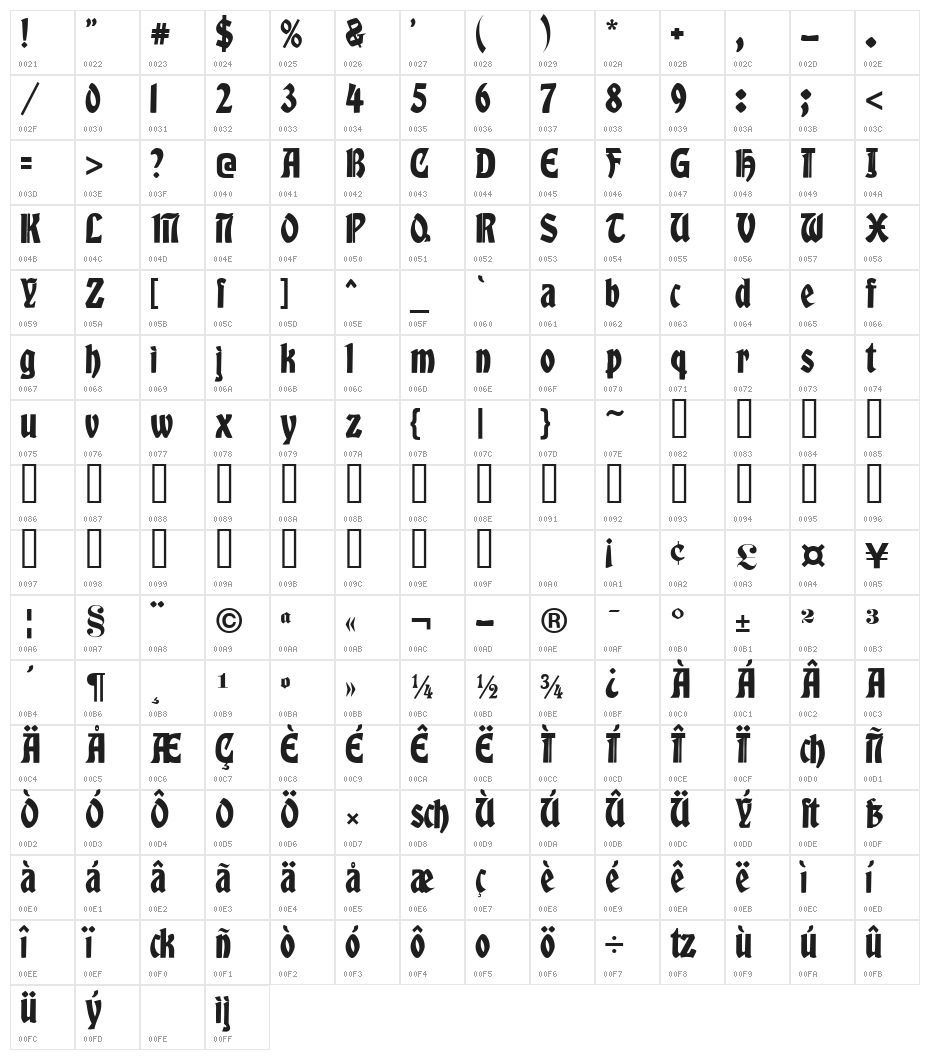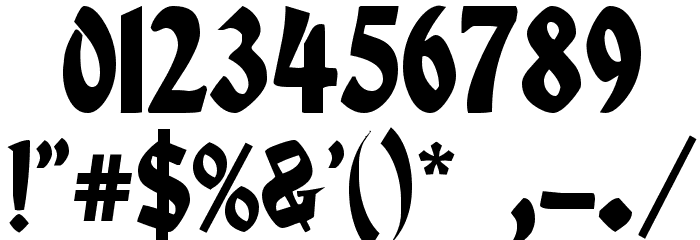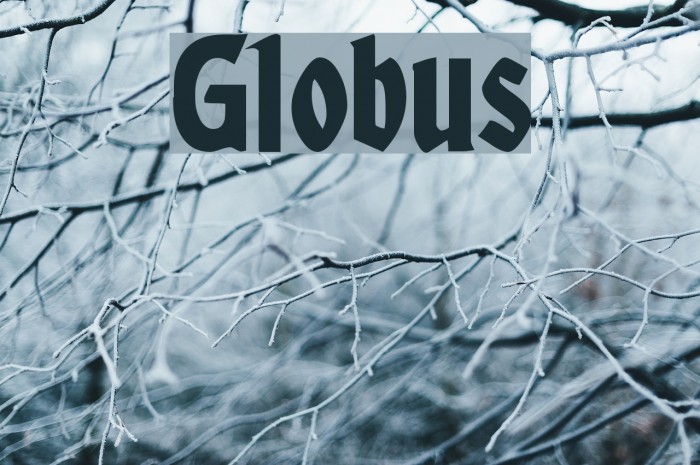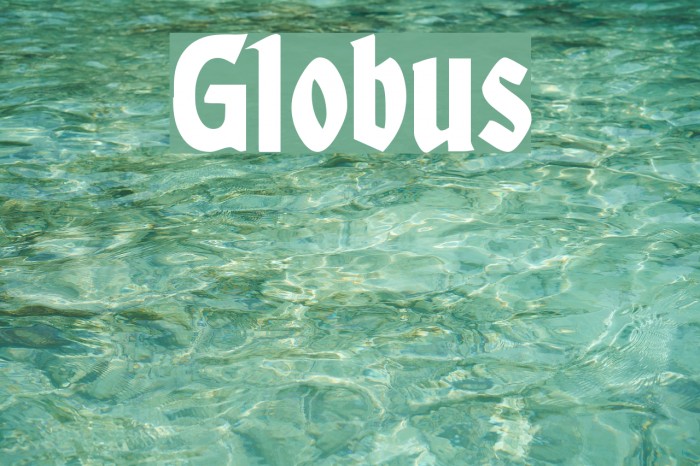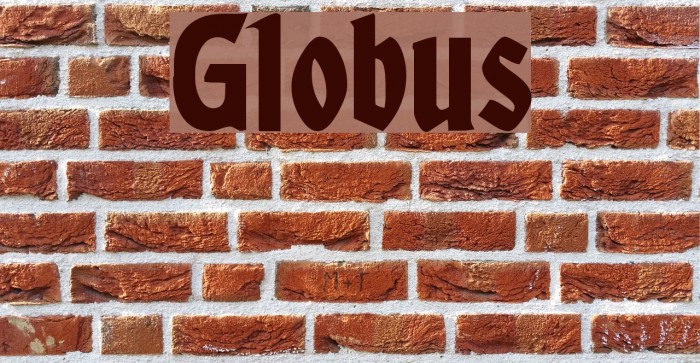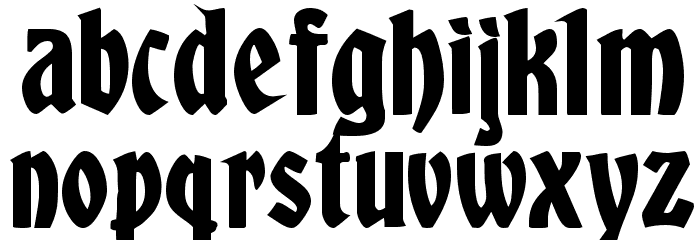
Globus Font
Globus Description
This font exhibits a bold and dramatic style, characterized by its thick, angular strokes and sharp edges. The uppercase letters are particularly striking, with a strong presence that commands attention. The lowercase letters maintain the same boldness, providing consistency across the typeface. Numbers and special characters are equally robust, ensuring legibility and impact. The overall design is reminiscent of traditional Blackletter fonts, yet it incorporates modern elements that make it suitable for contemporary use. The font's unique style makes it ideal for projects that require a strong visual identity.